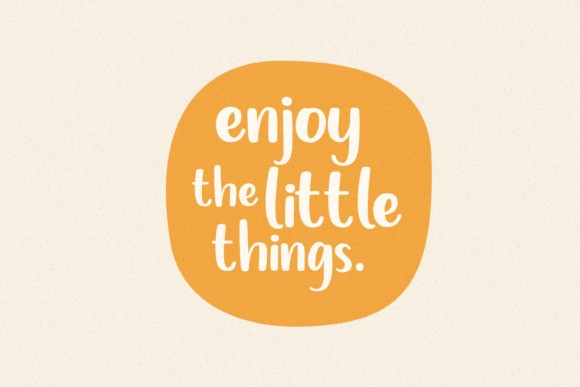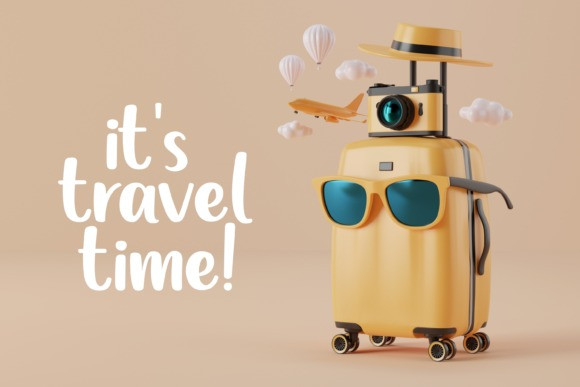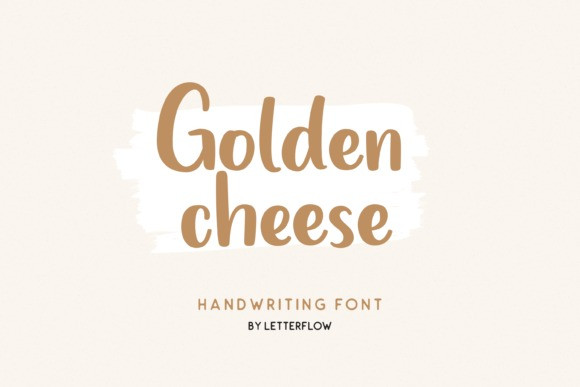
Golden Cheese Font
Golden Cheese Font is a casual and friendly handwritten font. No matter the topic, this font will be an incredible asset to your fonts’ library, as it has the potential to elevate any creation.